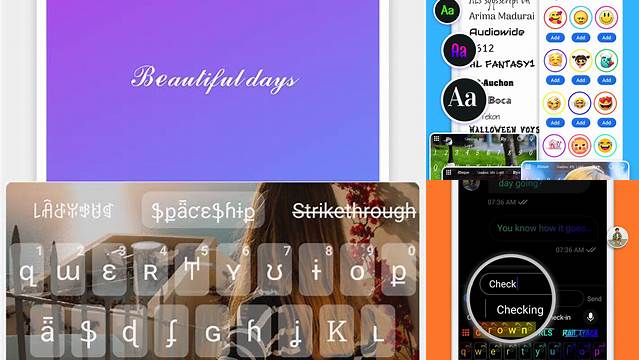
Hey guys! Ever feel like your phone's keyboard is just, well, a little blah? You're typing away, sending messages, crafting emails, and it all looks the same. But what if you could spice things up? What if you could add a little flair to your texts, a little pizzazz to your posts? That's where custom fonts come in! And today, we're diving deep into the world of fonts for Android and iPhone, focusing on how you can use a fonts keyboard and even share your creations with an APK. So, buckle up, font fanatics, let's get started!
Unleashing Your Inner Typographic Artist: Custom Fonts for Mobile
In the realm of mobile customization, fonts often stand out as a powerful tool for self-expression. Just think about it, guys: fonts are the visual voice of your words. They can convey a mood, a personality, a style – all without saying a single extra syllable. Whether you're aiming for sleek and modern, playful and whimsical, or classic and elegant, the right font can make all the difference. This is particularly true in our increasingly digital world, where our phones have become extensions of ourselves. Our smartphones are how we communicate, how we consume information, and how we present ourselves to the world. Therefore, having the ability to customize our fonts allows us to inject a bit of our own unique personality into our digital interactions. Forget the boring system default, folks! We're talking about a whole new world of typographic possibilities right at your fingertips!
But here's the thing: for a long time, mobile font customization was a bit of a headache. It involved rooting your Android device (a process that voids your warranty and can be risky if not done correctly) or jailbreaking your iPhone (same issues, different ecosystem). Thankfully, those days are largely behind us. Now, there are user-friendly apps and keyboards that make adding custom fonts a breeze. These apps often come packed with a huge library of fonts to choose from, and many even let you create your own fonts or import fonts you've found elsewhere. So, whether you're a seasoned typography enthusiast or just someone looking to add a little oomph to your texts, there's a font solution out there for you. And that's what we're here to explore today – the exciting world of mobile font customization and how you can get in on the action!
The Rise of the Fonts Keyboard: Your Gateway to Typographic Freedom
The fonts keyboard is where the magic truly happens, guys. Think of it as your central hub for all things font-related on your mobile device. Instead of being stuck with the default system font, a fonts keyboard allows you to switch between a variety of styles directly from your keyboard. Imagine typing a message and instantly being able to see how it looks in a dozen different fonts, from cursive scripts to bold sans-serifs. It's like having a mini typography studio right in your pocket!
These keyboards typically work by integrating directly into your operating system. Once installed and enabled, they replace your default keyboard and offer a range of font options right alongside your usual keys. Many fonts keyboards also include other features, such as emoji support, sticker integration, and even custom themes. This makes them a versatile tool for personalizing your entire typing experience, not just the fonts. Using a fonts keyboard is also incredibly straightforward. Typically, you'll start by downloading and installing a fonts keyboard app from your app store (Google Play Store for Android, App Store for iOS). Once installed, you'll need to enable the keyboard in your device's settings. This usually involves going to your keyboard settings and selecting the fonts keyboard as your active input method. After that, you're good to go! Whenever you're typing in an app, you can simply switch to the fonts keyboard and start experimenting with different styles. Many keyboards have a dedicated font selection menu, making it easy to browse and choose the perfect font for your message. Some even let you create custom font combinations or save your favorite fonts for quick access. It's all about putting the power of typography at your fingertips, allowing you to express yourself in a way that feels authentic and unique. No more boring texts, guys! Let's make our words visually interesting, too.
Android vs. iPhone: Font Customization Showdown
Now, let's talk about the elephant in the room, guys: Android versus iPhone when it comes to font customization. While both platforms offer ways to change fonts, they approach it in slightly different ways, with varying levels of flexibility. Generally speaking, Android has traditionally been more open to font customization than iOS. This means Android users have typically had more options for installing and using custom fonts, often through third-party apps and font keyboards. Android's open nature has allowed developers to create a wide range of font-related tools, making it a playground for typography enthusiasts. You can find apps that let you install system-wide fonts, meaning the font will change across your entire device, not just in specific apps. This gives you a consistent and personalized look and feel throughout your phone. You can also find fonts keyboards that offer a vast selection of fonts to use within messaging apps, social media, and more. The possibilities are pretty extensive!
On the other hand, iOS has traditionally been more restrictive when it comes to font customization. Apple has historically prioritized a consistent user experience, which has meant limiting the ability to change system fonts. However, things are slowly changing. With recent iOS updates, Apple has introduced some support for custom fonts, but it's still not as flexible as Android. As of iOS 13, users can install custom fonts through the App Store and use them in apps that support them, such as Pages, Keynote, and Mail. This is a welcome change, but it's important to note that the fonts are not system-wide. They only work within specific apps that have implemented font support. This means you won't see your custom font in your system menus or in apps that haven't been updated to support custom fonts. Despite these differences, both Android and iOS offer viable ways to customize your fonts. It's really a matter of personal preference and how much control you want over your typographic experience. If you're looking for maximum flexibility and system-wide changes, Android is still the king. But if you're happy with using custom fonts within specific apps and value the simplicity of iOS, then Apple's platform has you covered too.
Finding the Perfect Font: Resources and Recommendations
Okay, guys, you're pumped about custom fonts, you've got your keyboard ready, but now comes the big question: where do you find these amazing fonts? Don't worry, we've got you covered! There's a vast universe of fonts out there, both free and paid, just waiting to be discovered. Finding the perfect font can feel a bit like searching for a needle in a haystack, but with the right resources, you'll be swimming in typographic gold in no time. Let's start with some of the best places to find fonts online. One of the most popular resources is Google Fonts. This is a free library of hundreds of open-source fonts that are incredibly easy to use and download. They're also web-friendly, meaning they'll look great on both your phone and your computer. Another fantastic resource is DaFont. This website offers a massive collection of free fonts, with a wide variety of styles and licenses. You'll find everything from playful handwritten fonts to futuristic display fonts. Just be sure to check the license before using a font commercially, as some fonts are only free for personal use.
Conclusion: Embrace the Font-tastic World of Mobile Typography
So, there you have it, guys! A deep dive into the exciting world of fonts for Android and iPhone. From fonts keyboards to APK sharing, we've covered everything you need to know to unleash your inner typographic artist. Customizing your fonts is a fantastic way to personalize your mobile experience and express your unique style. Whether you're looking to add a touch of elegance to your emails, a splash of fun to your texts, or a professional polish to your presentations, the right font can make all the difference. Don't be afraid to experiment, explore different font styles, and find what resonates with you. Remember, your phone is an extension of yourself, so why not make it look and feel exactly the way you want? With the abundance of font resources available, both free and paid, there's no limit to the typographic possibilities. So go ahead, dive into the world of custom fonts, and let your creativity flow! And who knows, maybe you'll even design the next viral font sensation! The world of mobile typography is constantly evolving, with new fonts, new apps, and new customization options appearing all the time. Stay curious, keep exploring, and never stop expressing yourself through the power of fonts. Happy typing, guys!